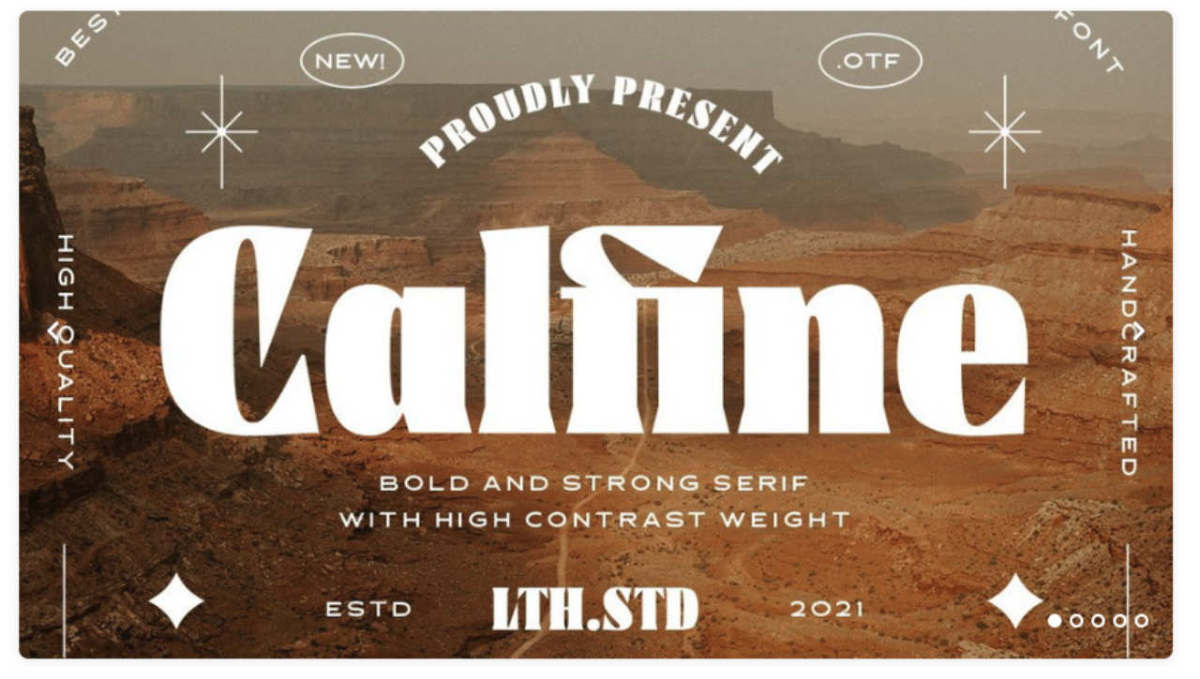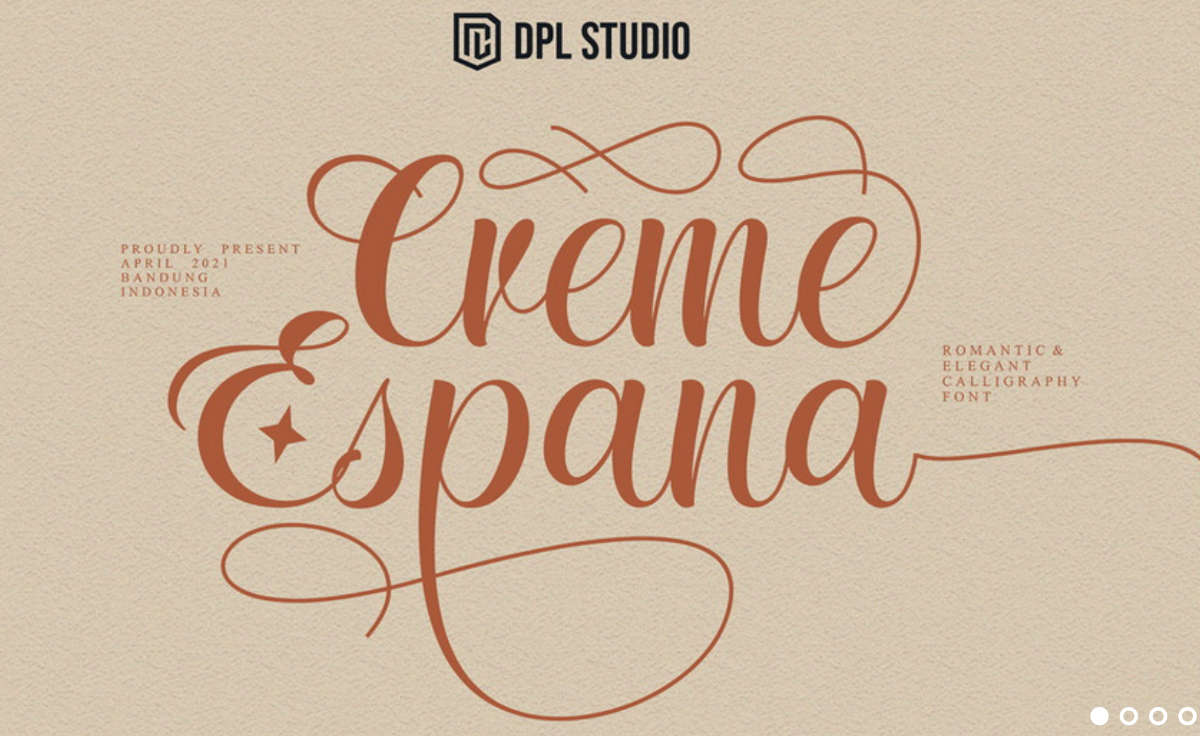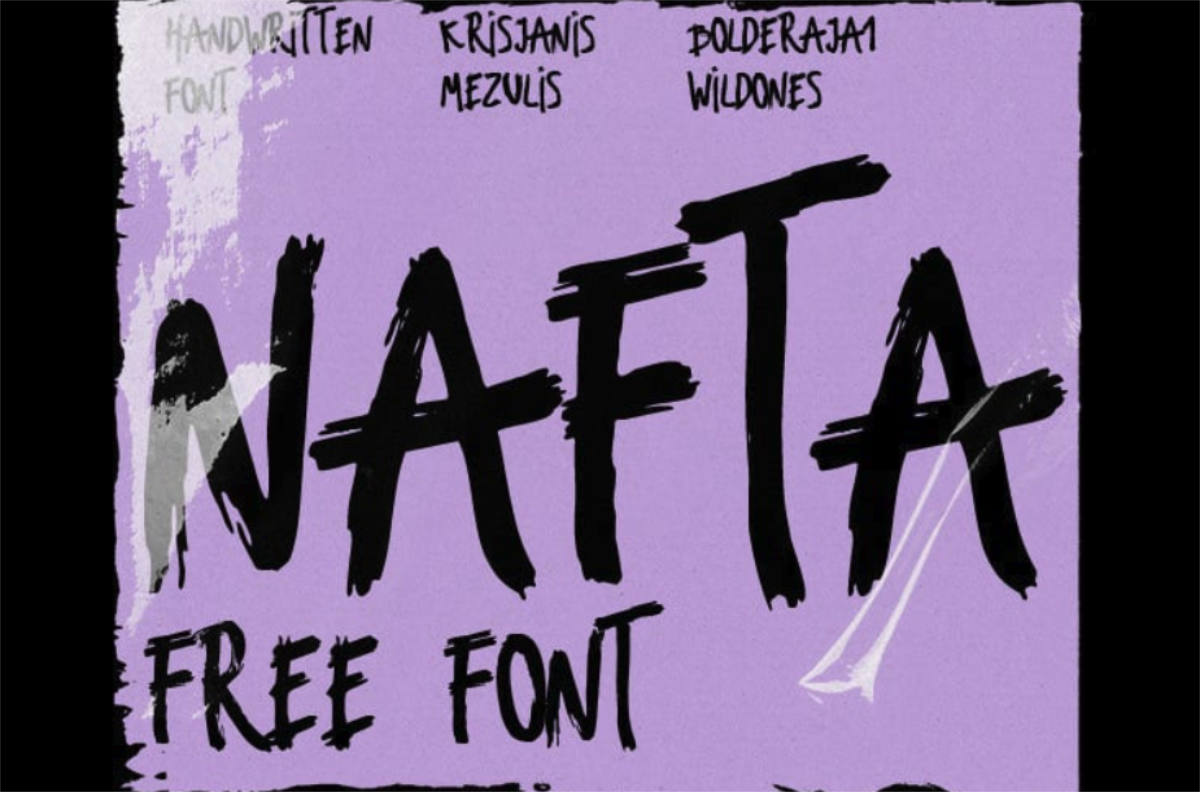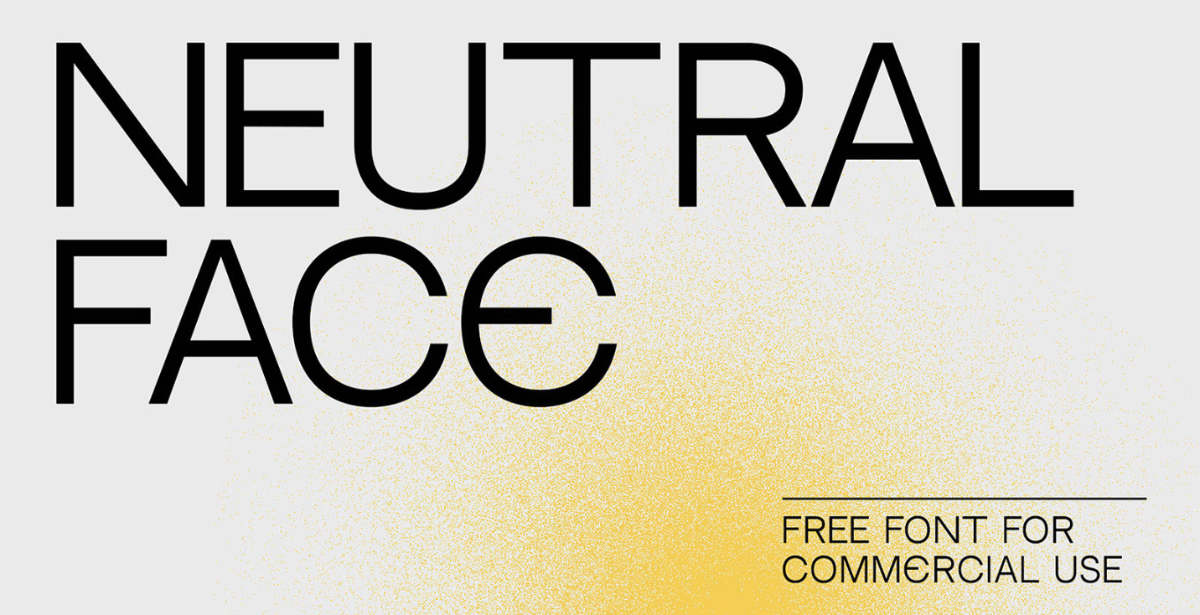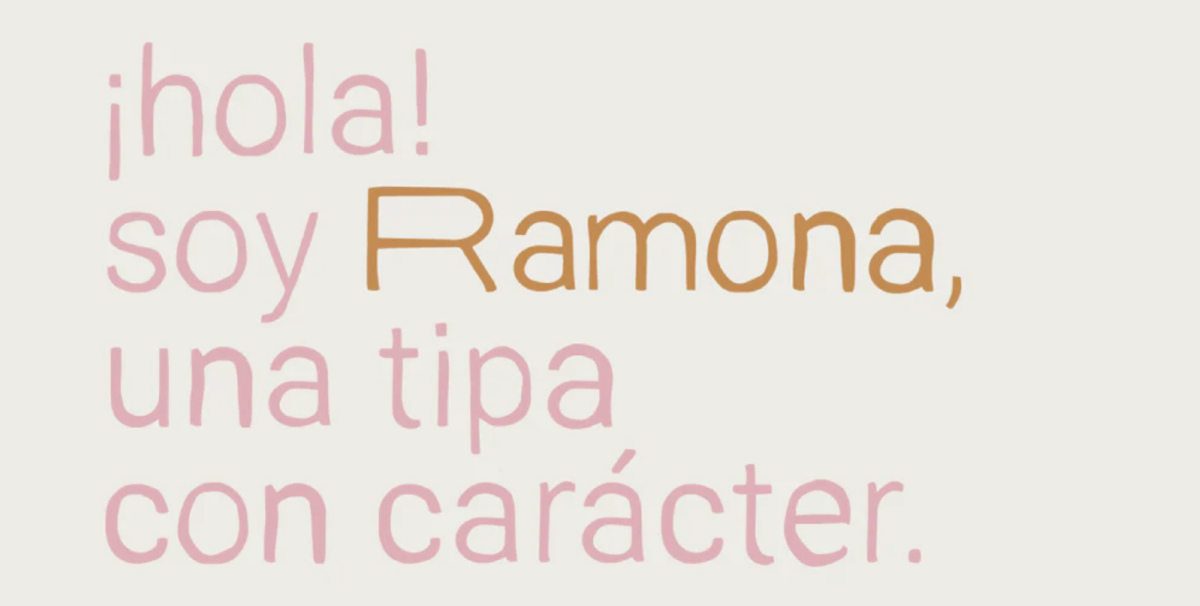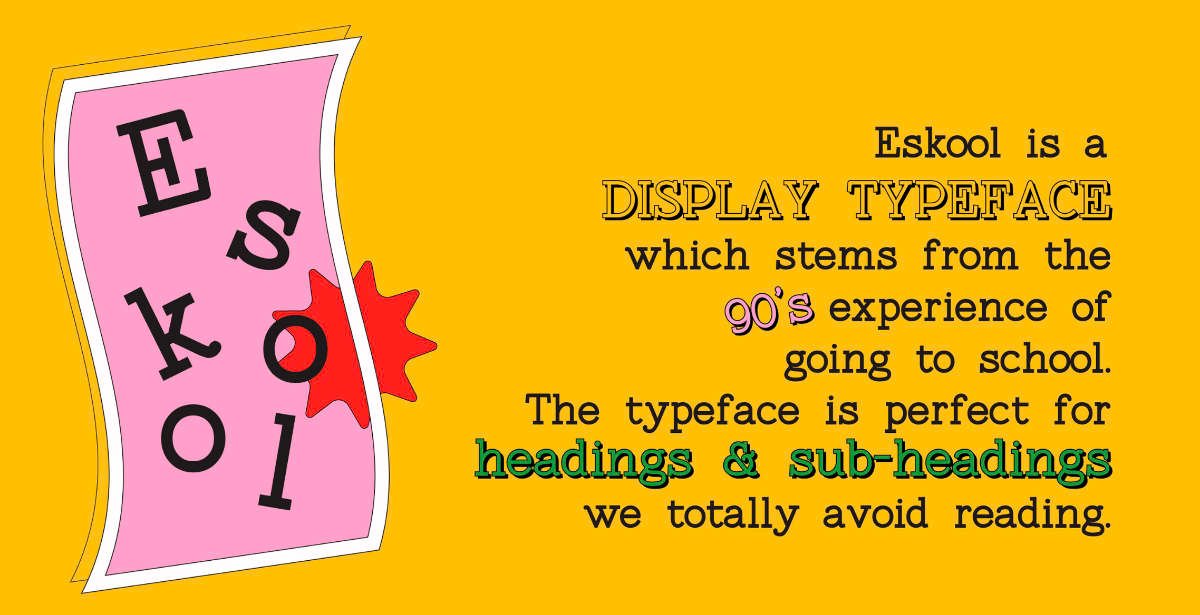
20 best free fonts for designers
When you’re designing anything for print or digital, there are a number of creative decisions that need to be made – including typography. Selecting the right font for your designs can add the right personality to your designs, accurately reflect your visual branding, attract the right audience and make your copy easier to read. Digital typography has been relatively limited until now, with new improvements such as FlexBox, Variable fonts, CSS Grids and CSS Shapes making it easier to look at typography online from new angles. Read on for 20 stylish free fonts that could help you take your projects to the next level. Correct at the time of publishing. Remember: Always check whether the font you are downloading is free, and what the specific licensing terms and conditions are – some fonts are free for personal use only, while others are available for commercial use.
1 – Obrazec
Looking for something strong and industrial? Created by Armenian designer Ilya Zakharov, this sans serif font would be ideal for word-based logos and giving short, snappy ads extra punch.
2 – Sonder Regular
A stylish font with high-contrast weight, Sonder has become a popular font choice among beauty and wellbeing brands. But its shifting line weight may make it a better, easier-to-read option for headers than body copy.
3 – WILD WORLD
Bold and unapologetic, WILD WORLD wouldn’t look out of place in a sci-fi movie. Designed by Abdullah Mosad, this is a font for businesses who have something to say and need to say it as loud as possible.
4 – Nighty
If you like to make moves but not take things too seriously, meet Nighty. This groovy, 70s-inspired font was inspired by retro magazines and would be the ideal choice for vintage-style designs.
5 – MONIQA
MONIQA is a variable display typeface with multilingual capabilities (it has both Latin and Cyrillic scripts). Its eye-catching style is drawn straight out of the roaring 20s, with dramatically varying line weights and tight character spacing.
6 – Creme Espana
An elegant calligraphy font with a few romantic flourishes that’s perfect for adding a touch of sophistication to your projects. If you work in events, this could be perfect for personalised stationery.
7 – Pulchella Pro
Playful and lively with a vintage hint, Pulchella Pro is a sans serif font ideal for webpage headers, product packaging and logos.
8 – Calfine
This high-contrast weight font is bold and strong, with an almost reckless playfulness to it. Ideal for use in logos, labels and marketing materials, this font will help you stand out from the crowd.
9 – Projekt Blackbird
With hard lines and minimal spacing between characters, Projekt Blackbird is a sans serif font created by Leonit Gashi.Its simple, versatile style makes it a great option to use for both headers and body copy.
10 – Neutral Face
Designed by Vadym Aksieiev, this minimalist, elegant font could be used for logos, magazines, landing pages and product packaging. Its crisp lines and use of space could work wonders for your site’s UX.
11 – Eskool
Reminiscent of ’90s school materials and teaching shows, Eskool is a colourful, nostalgic font ideal for making headers and sub-headers standout and unskippable.
12 – Migha
Migha’s vintage allure and striking, modern design could make it a popular choice with entertainment venues, late-night dining spots and boutiques. It has a full set of numbers, uppercase, punctuation and multilingual support with six weights, 4 widths, contrast and slant.
13 – Nafta
This high-contrast font has a modern, rebellious edge to it, and is meant to look like free-hand marker strokes. For businesses looking to create a subversive visual brand, this could be a good pick.
14 – Karen Funny Cartoon
Bold, rounded, funny, bouncy – always to describe this eye-catching font. With its hand-sketched, ’80s style and high-contrast weight, Karen Funny Cartoon is an ideal font for grabbing people’s attention.
15 – SK-Modernist
Modern and fuss-free – that’s what the SK-Modernist font can convey about your business. This clean, minimal font was designed for online use, making it easier for your target audience to read all about you.
16 – Harmond
Harmond is a strong serif font in a modern, fresh style. Its sharp lines and traditional slant can add a touch of modern elegance to a brand, and could be used for posters, webpages and business cards.
17 – Ramona
Inspired by Argentinian folk songwriter Mercedes Sosa, Ramona is a textured sans serif font designed by Cristian Tournier. Its irregular line edges could give a handcrafted, personal touch to newsletters.
18 – Fogtwo No5
Ranging from fine and elegant to brutalist and bold, Fogtwo No5 is a font meant for any larger text – page titles, poster headers, pop-ups. This display serif font is surprisingly versatile.